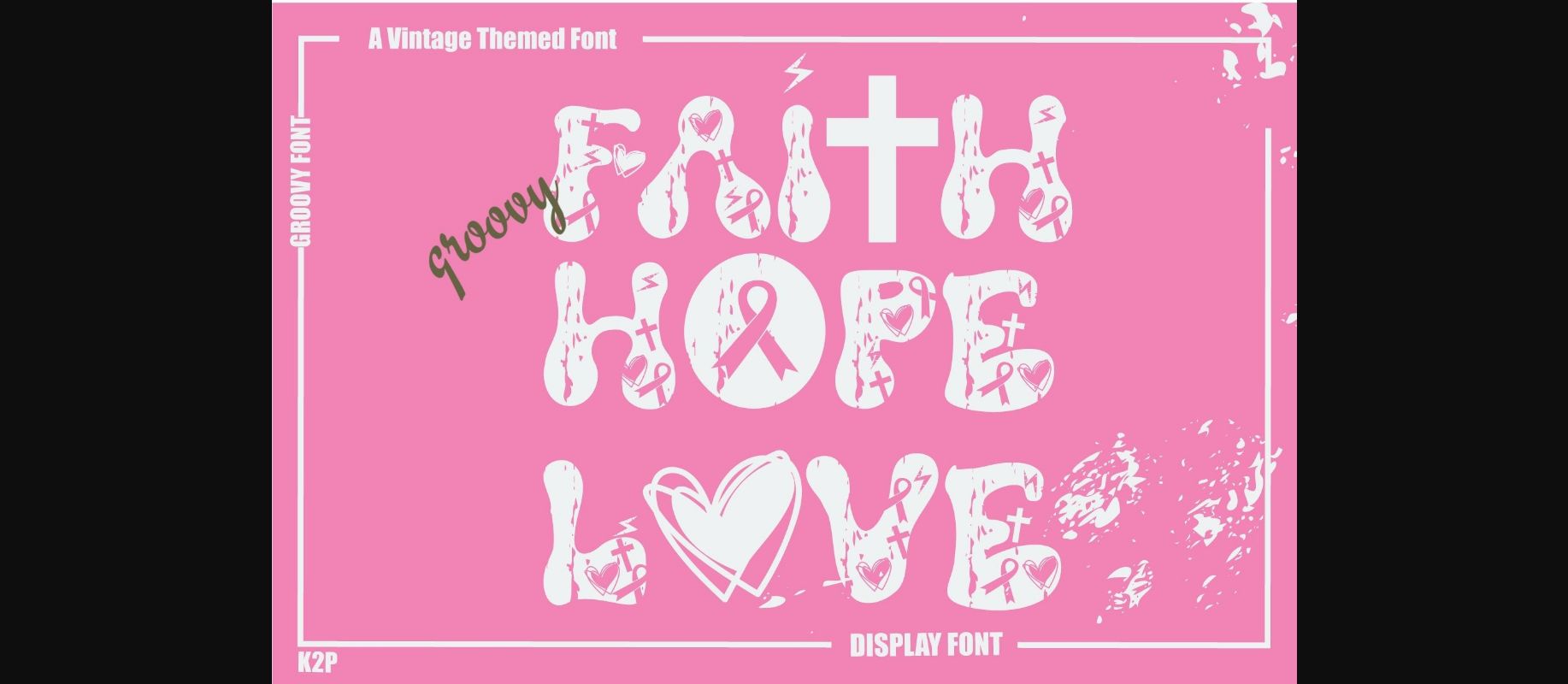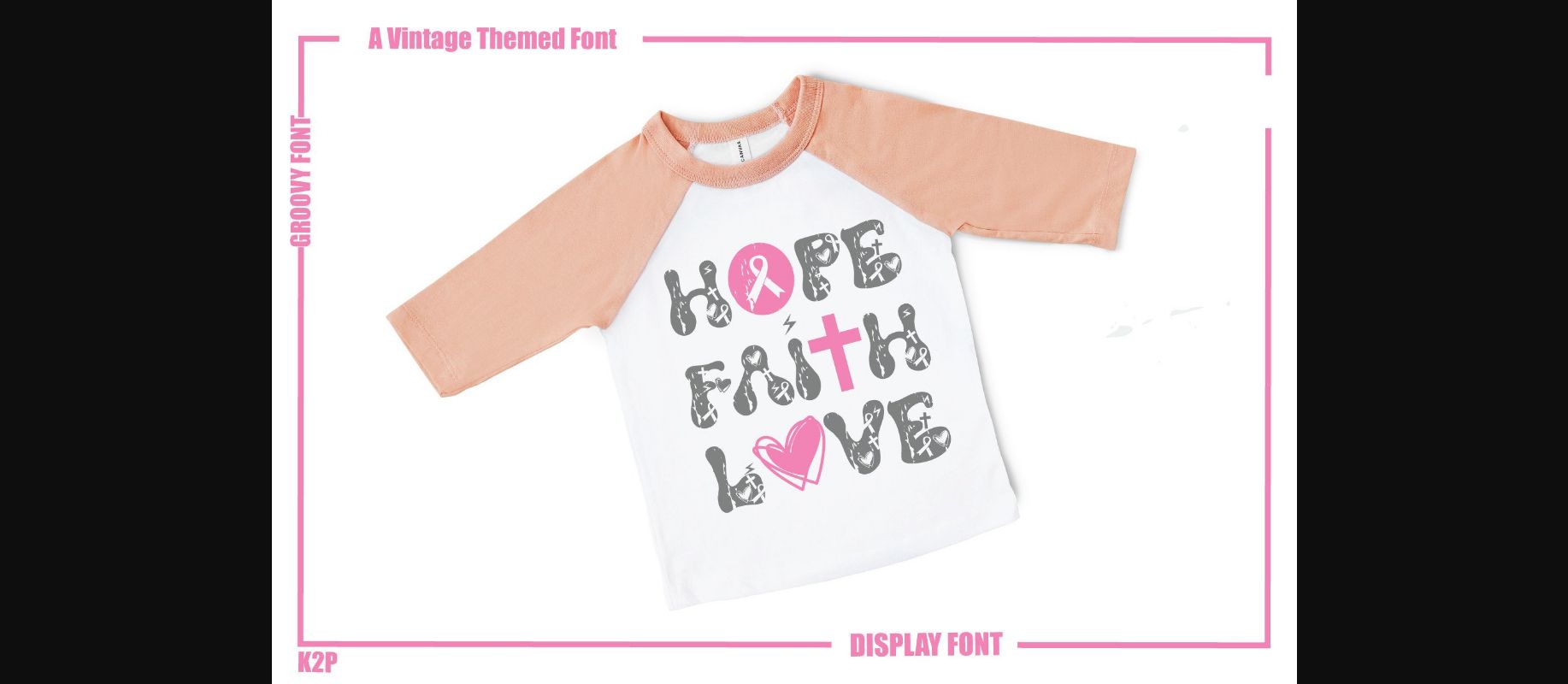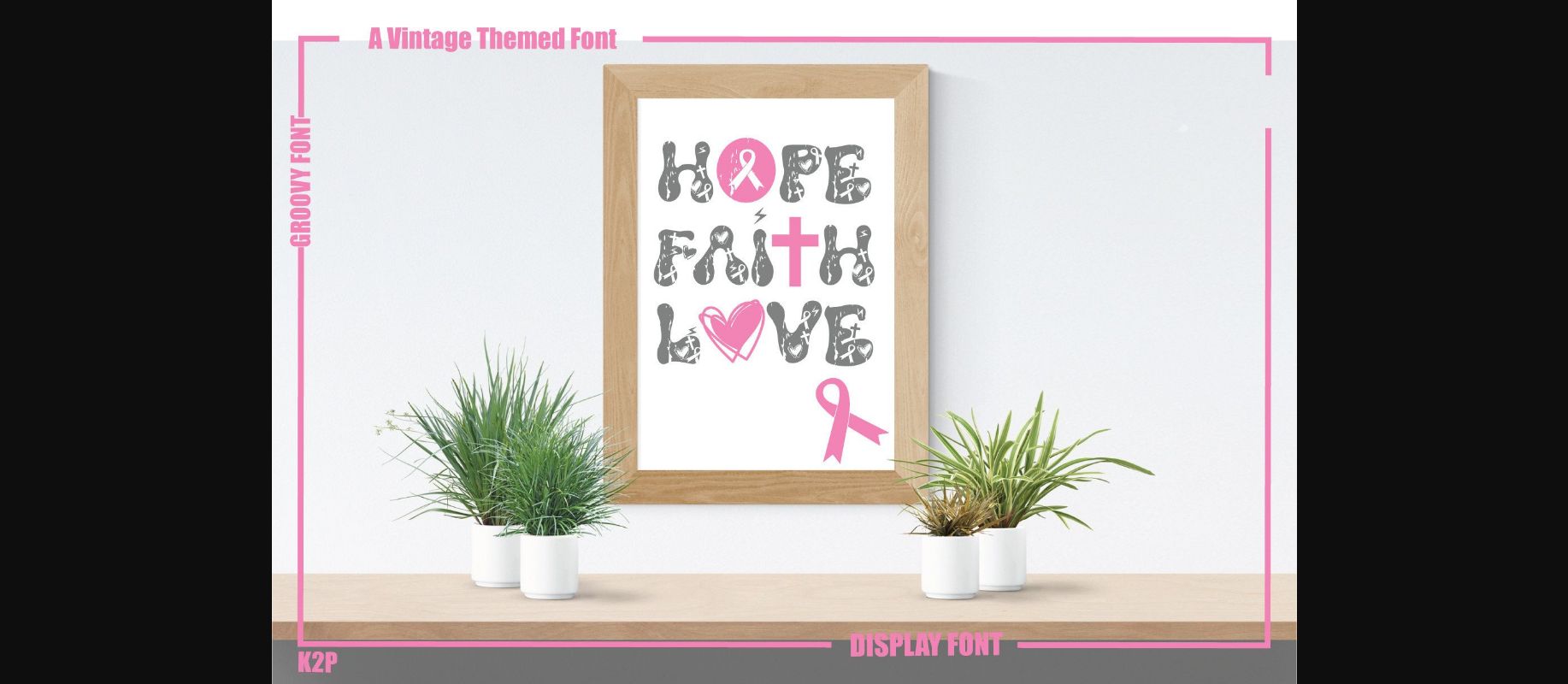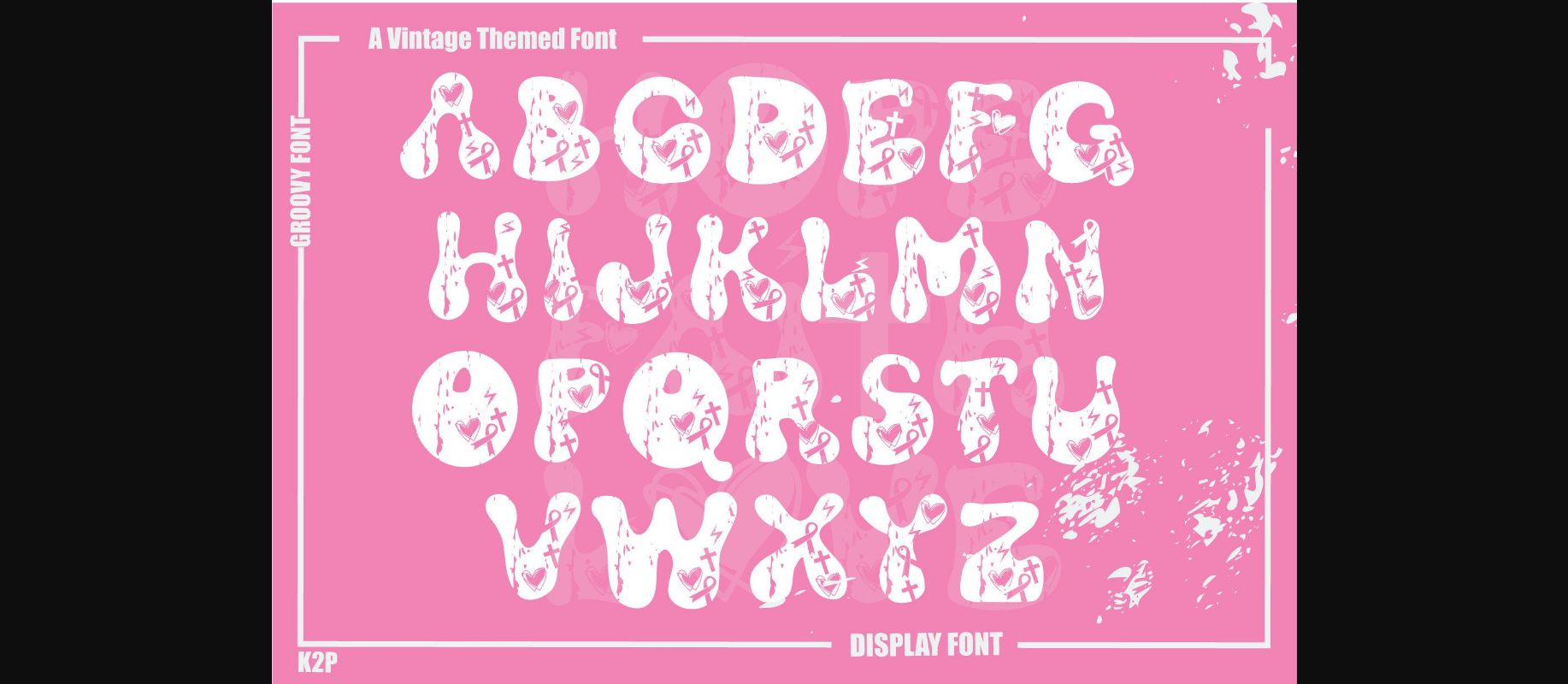
Groovy Faith Hope Love Font
About Groovy Faith Hope Love Font
Groovy Faith Hope Love is a thick-lettered and unique decorative font. It is perfectly suitable for any breast cancer awareness project. This font is PUA encoded which means you can access all glyphs and swashes with ease!